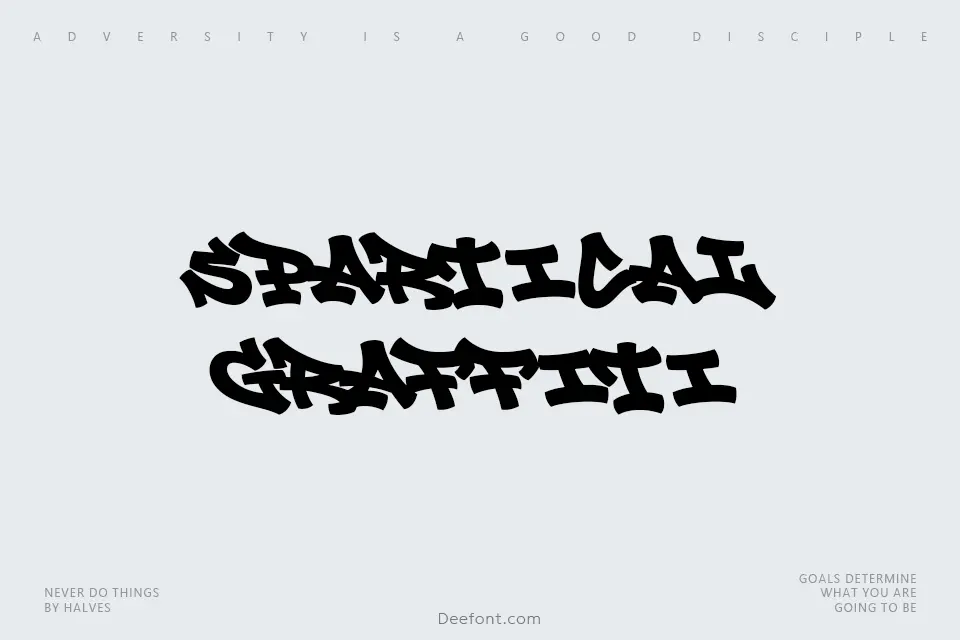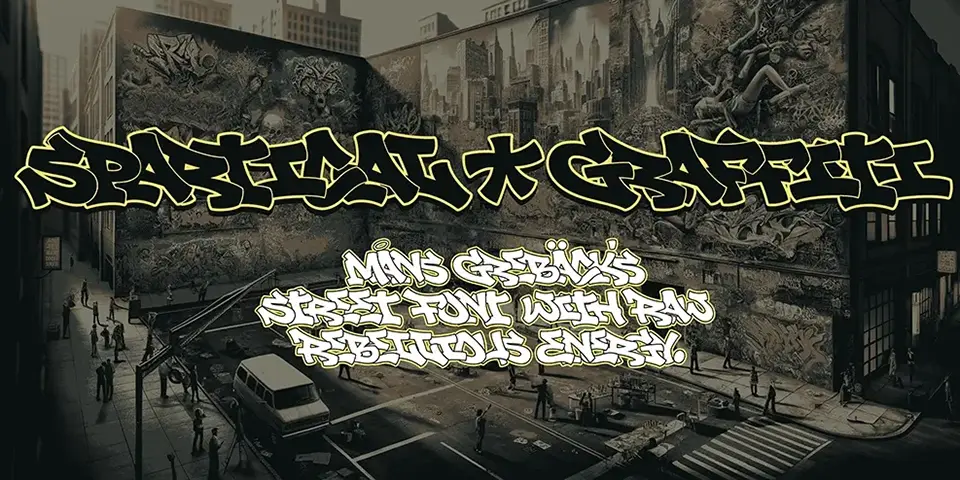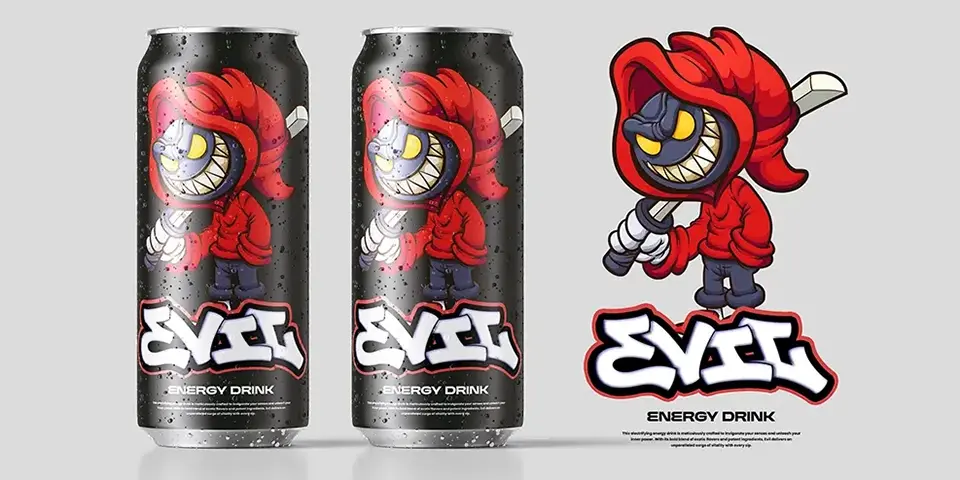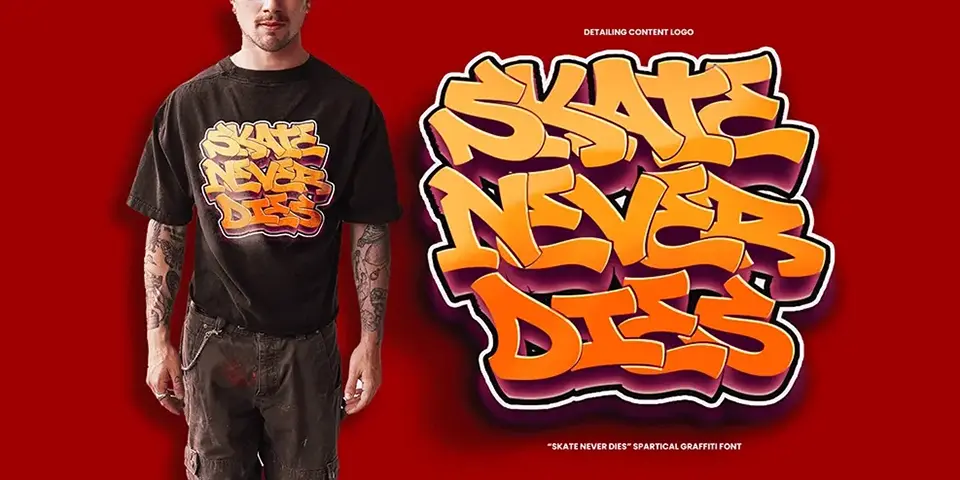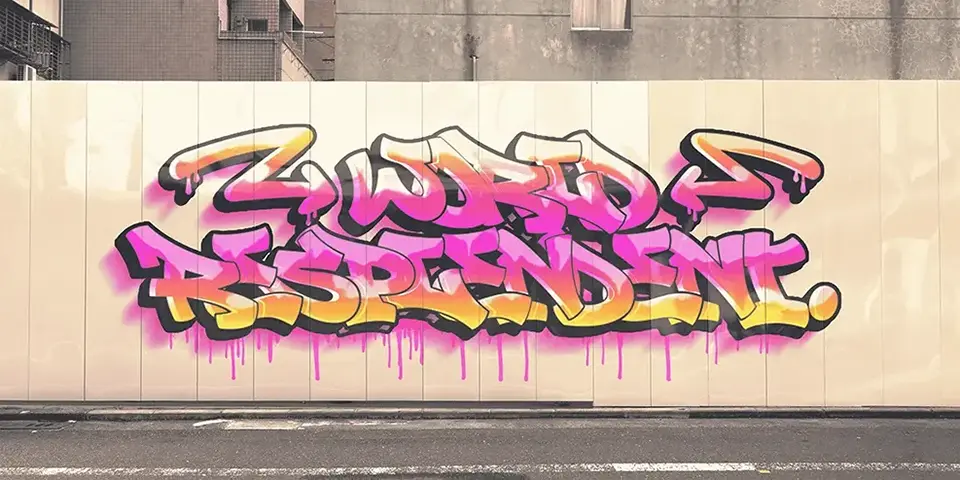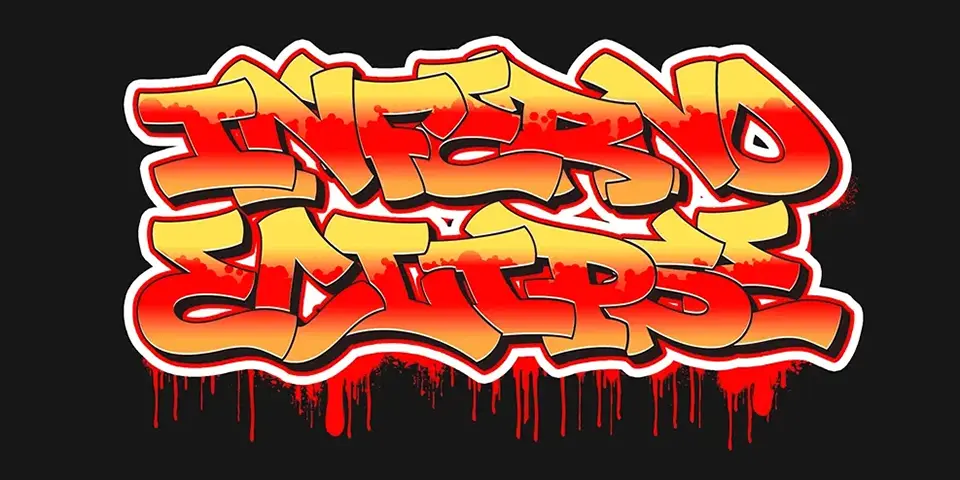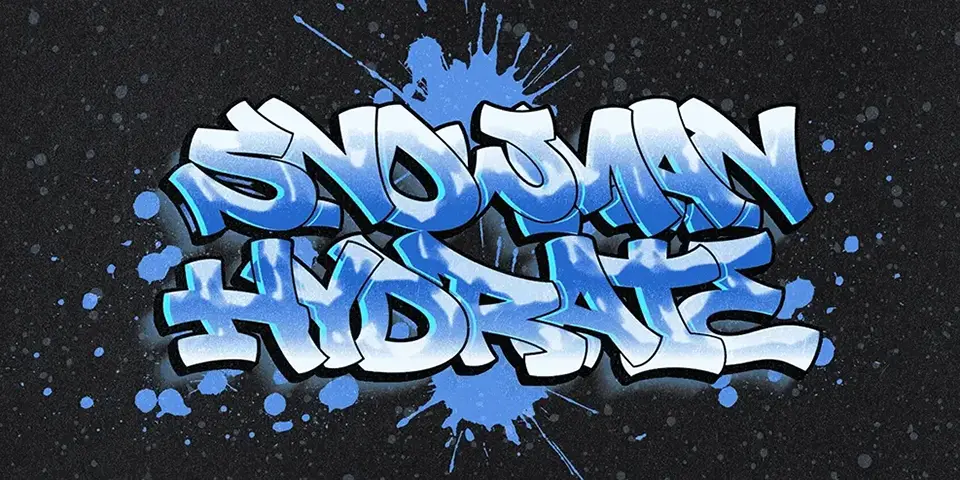
Spartical Graffiti Font
Spartical Graffiti is a bold and expressive graffiti script font that captures the raw energy and vibrant spirit of hip hop and street culture. Designed with high-contrast strokes and graffiti-inspired details, this decorative typeface features contextual alternates that allow letters to overlap for enhanced visual impact. Perfect for logos, posters, music branding, album covers, and street-inspired designs, Spartical Graffiti brings authentic urban aesthetics and dynamic personality to creative projects, making it an ideal choice for designers seeking an edgy, attention-grabbing display font with attitude.